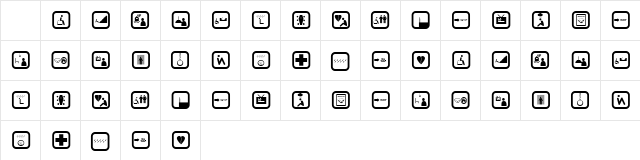
Complete DEPRESSIVE ICON Regular glyph index. Displaying only characters natively supported by DEPRESSIVE ICON Regular font.
DEPRESSIVE ICON is a composed and adaptable typeface that performs quietly and consistently across a wide range of design contexts.